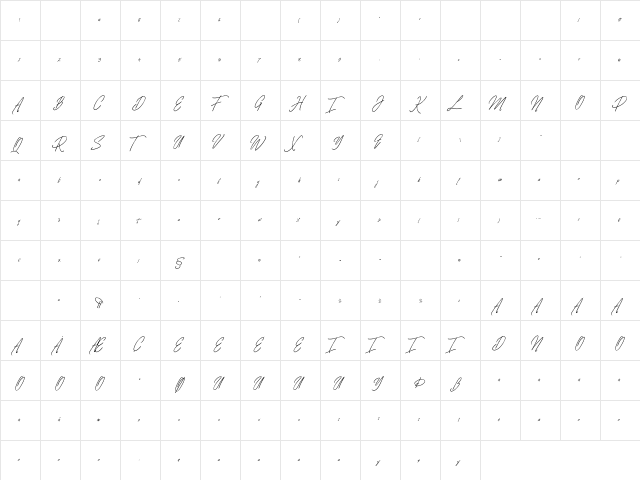
Blarrack Personal Use Regular
Design Context for Blarrack Personal Use Typeface
Blarrack Personal Use is a composed and adaptable typeface that performs quietly and consistently across a wide range of design contexts.